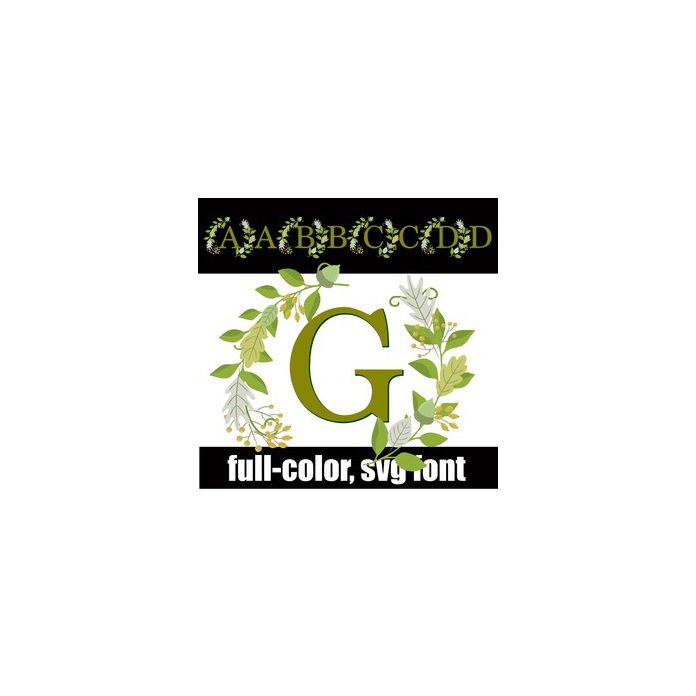
This full-color font features leaves, acorns, and more in a frame around capital letters making it great for a green-themed monogram. The lowercase is actually an uppercase but w/o decor and a second real lowercase is available through alt options in your system's glyph map.